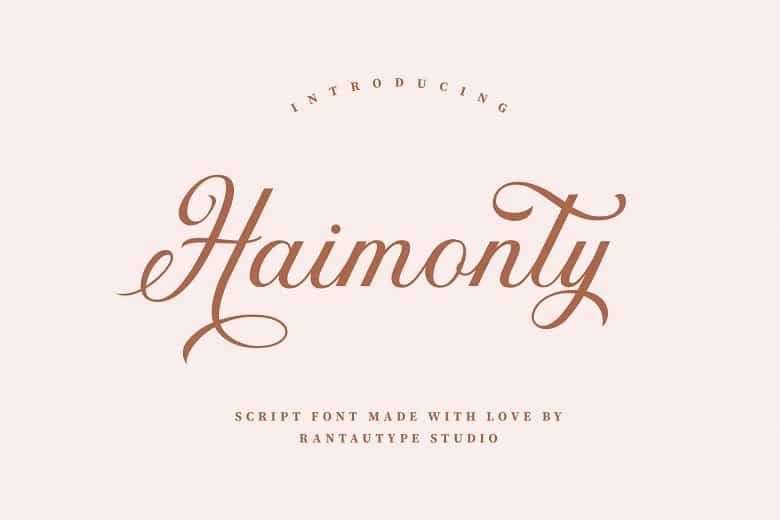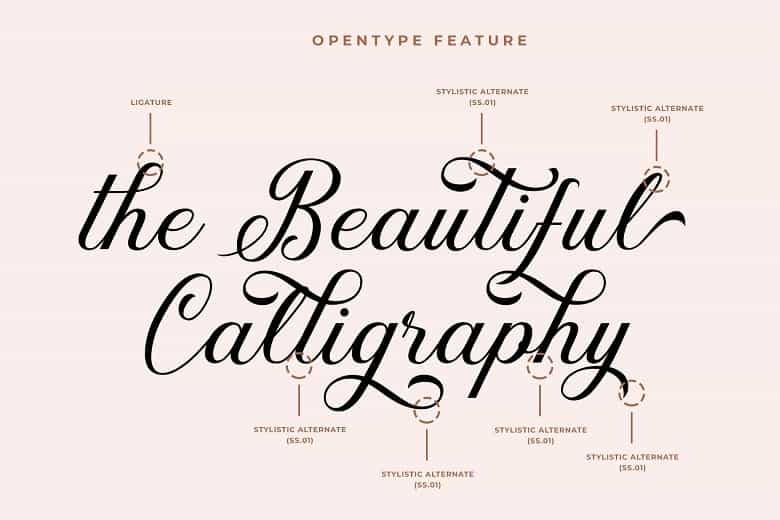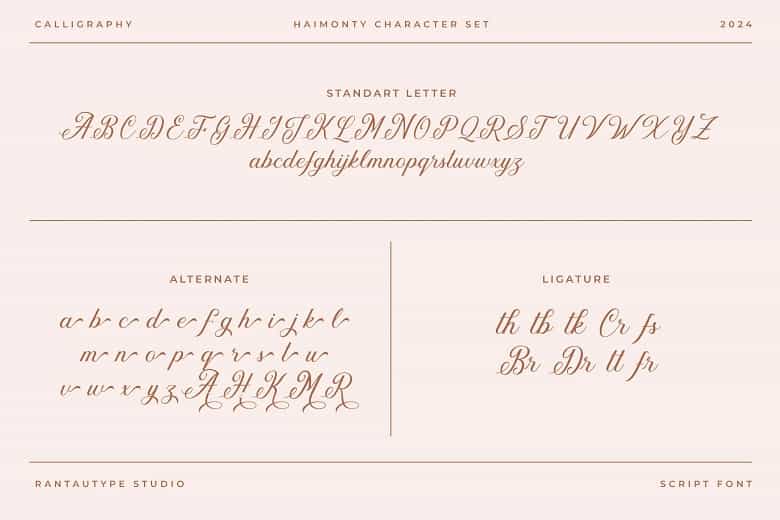
Haimonty is a calligraphy font with a very smooth script style in accordance to handwriting. Heimonty comes to enhance your designs and Beautify your designs and make them more appealing. Heimonty add a luxuries impression, there are many alternate you enhance your design.